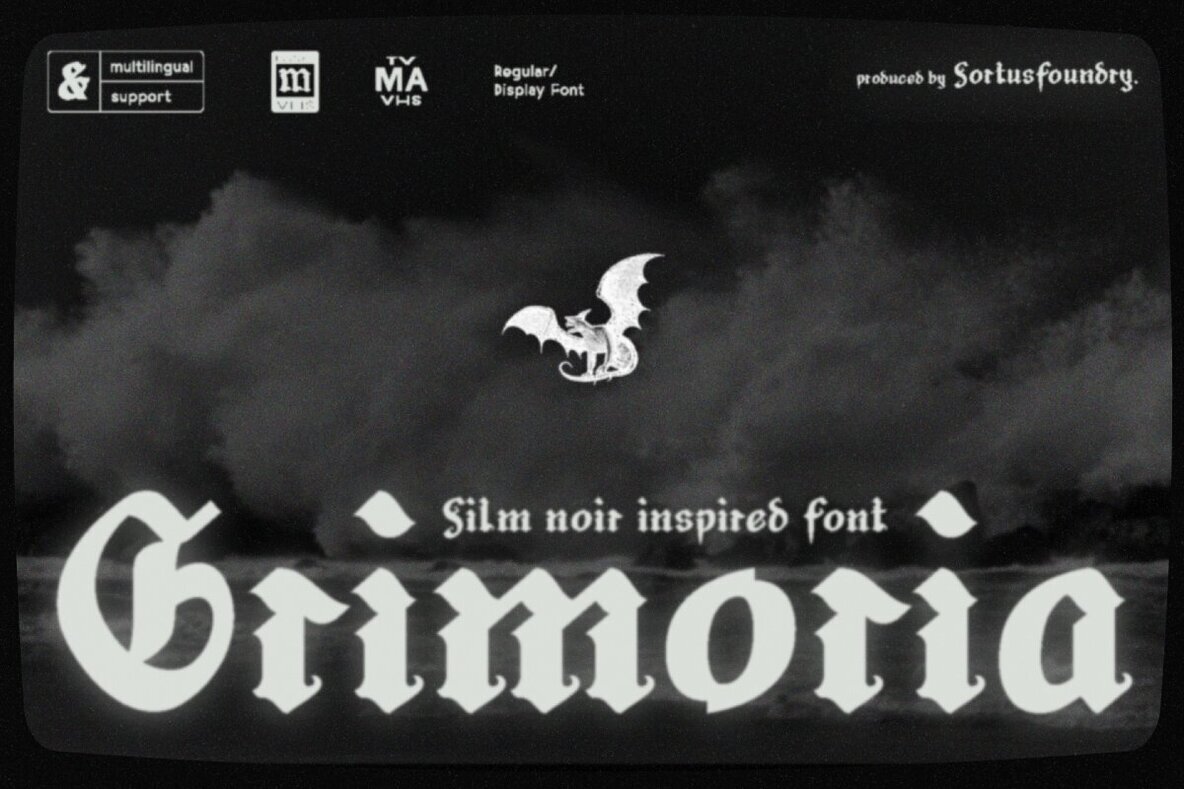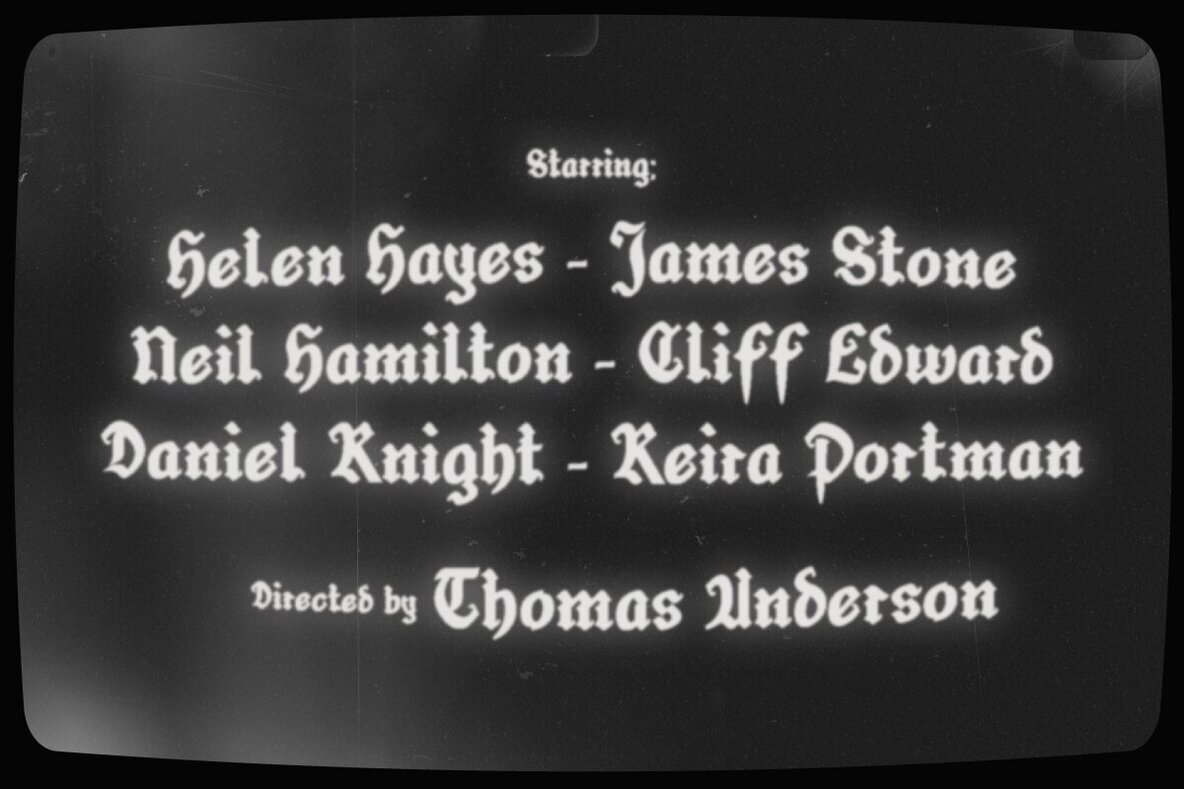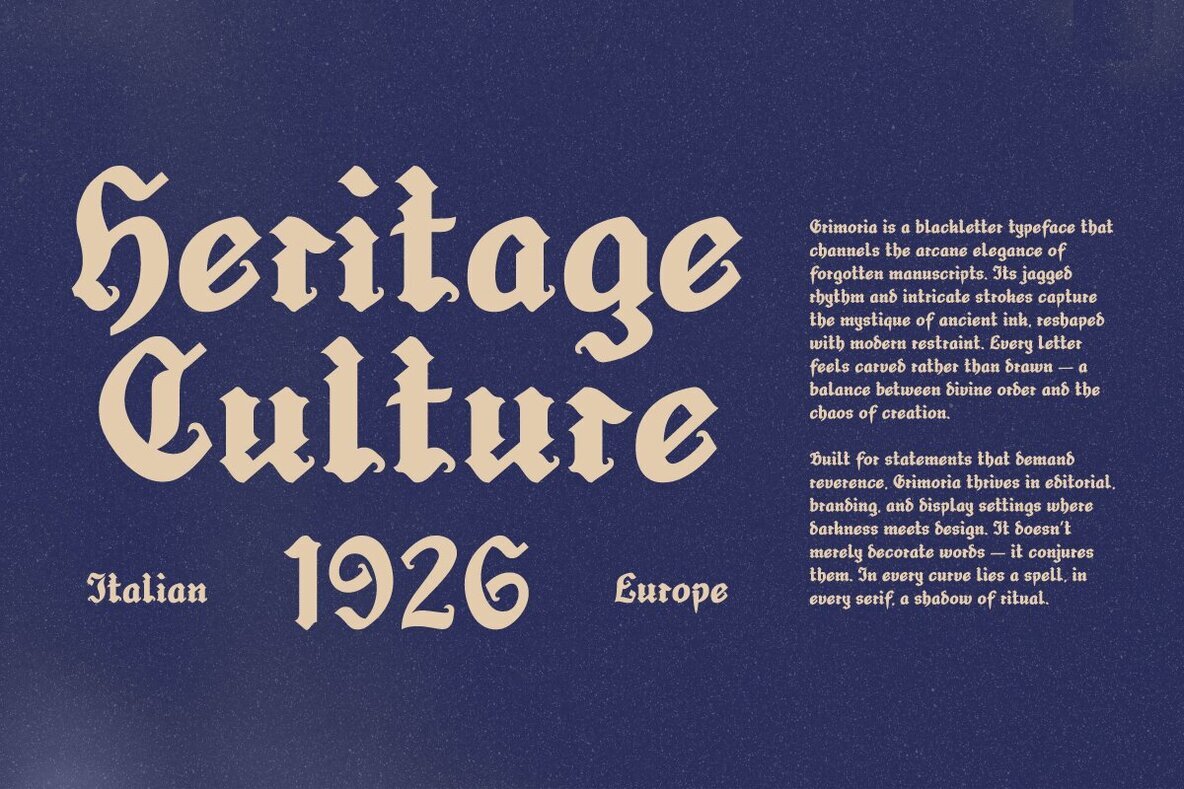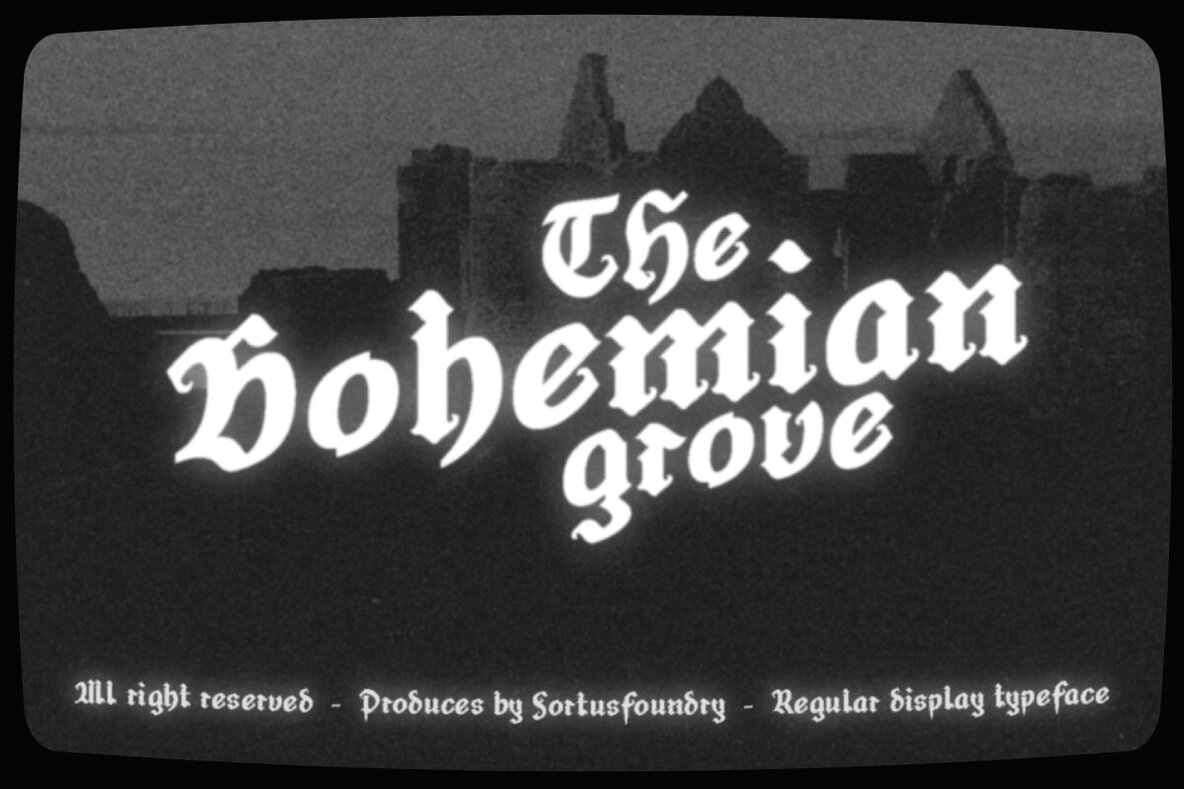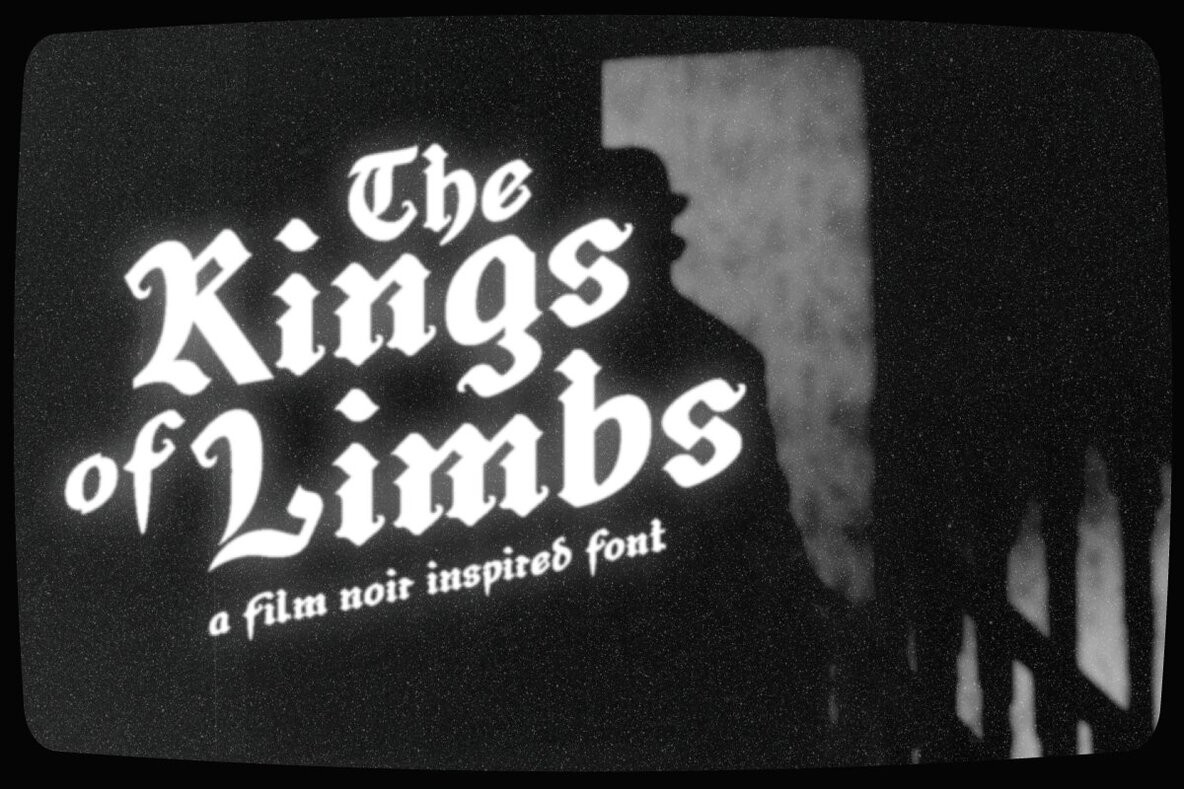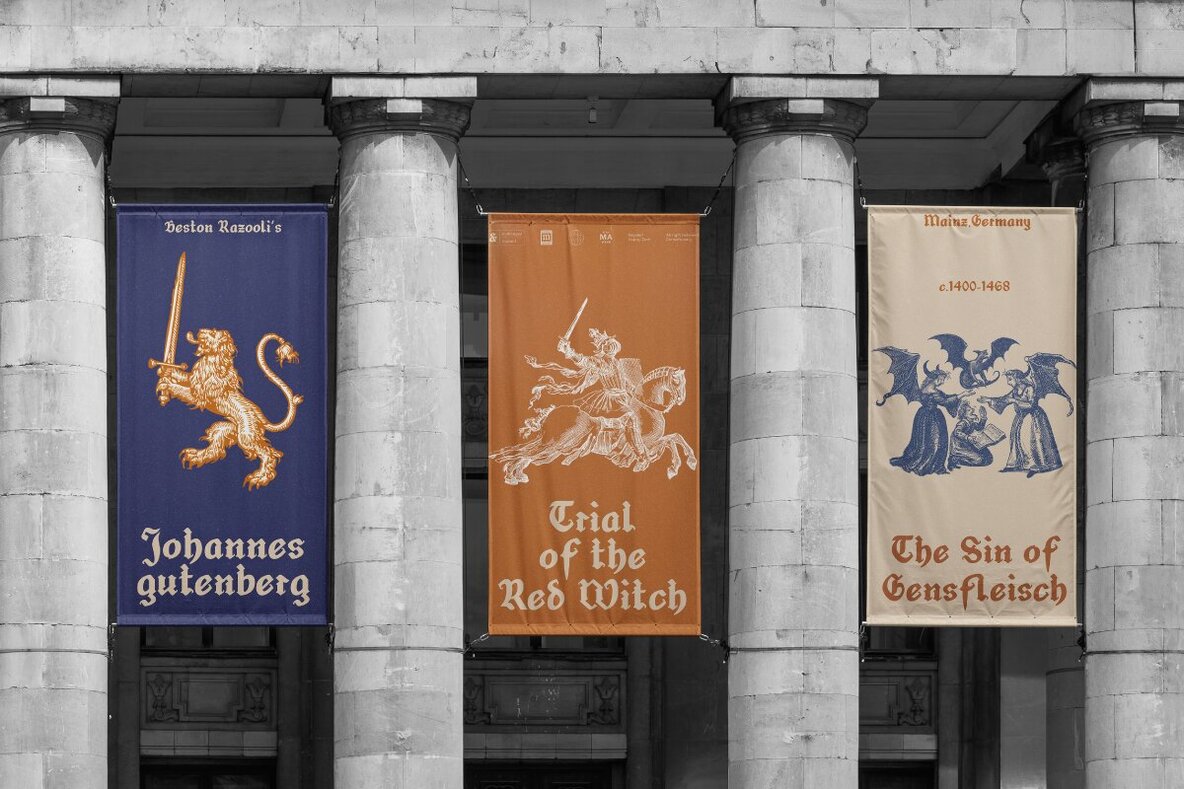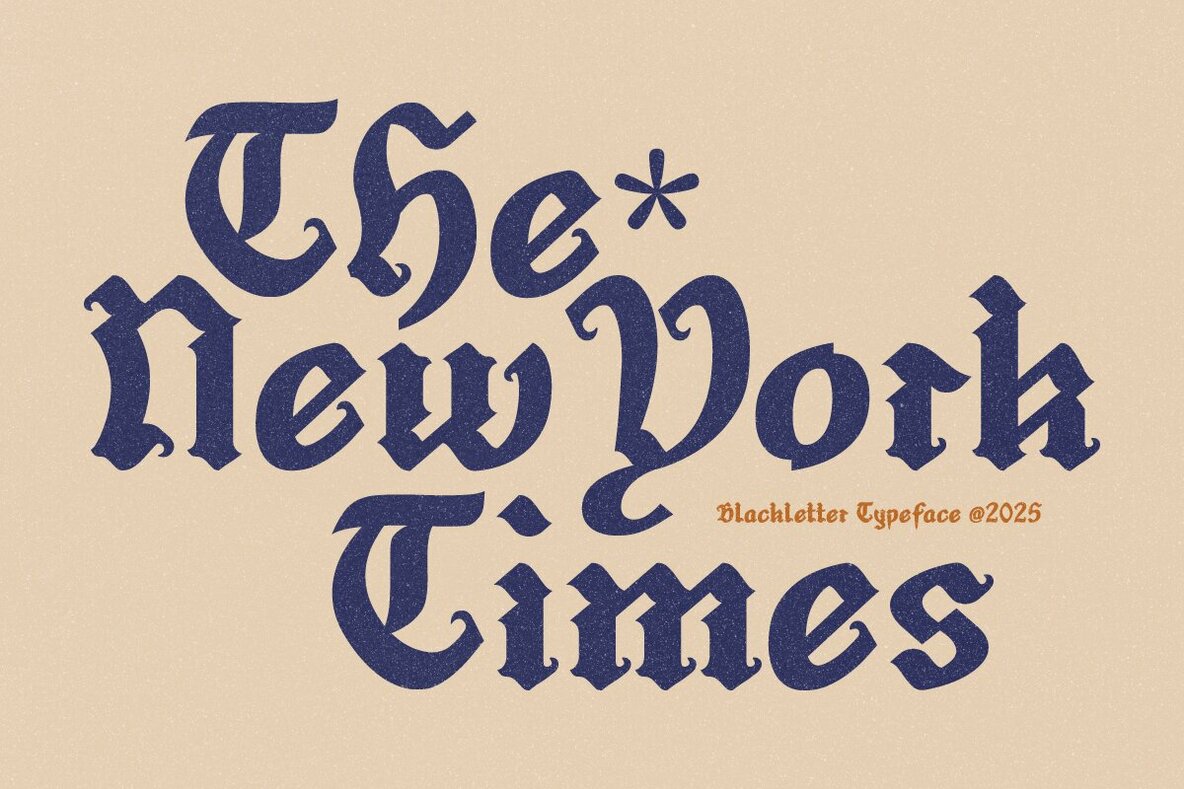
Grimoria
The Grimoria typeface captures the allure of ancient manuscripts with its compelling blackletter style, evoking the mystique of sacred texts through its jagged rhythm and sculpted forms. Embodying a balance of order and chaos, Grimoria reshapes medieval intensity for a contemporary audience. Each letter seems carved, suggesting ritualistic significance, making it ideal for projects that aim to evoke emotion, such as album covers, posters, or book titles.Grimoria: A Mystic Blackletter Typeface
Suitable for today’s digital landscape, Grimoria preserves the essence of European blackletter tradition while ensuring readability. This typeface transcends decorative purposes, imbuing each word with a historical whisper, encouraging exploration and engagement in every project.